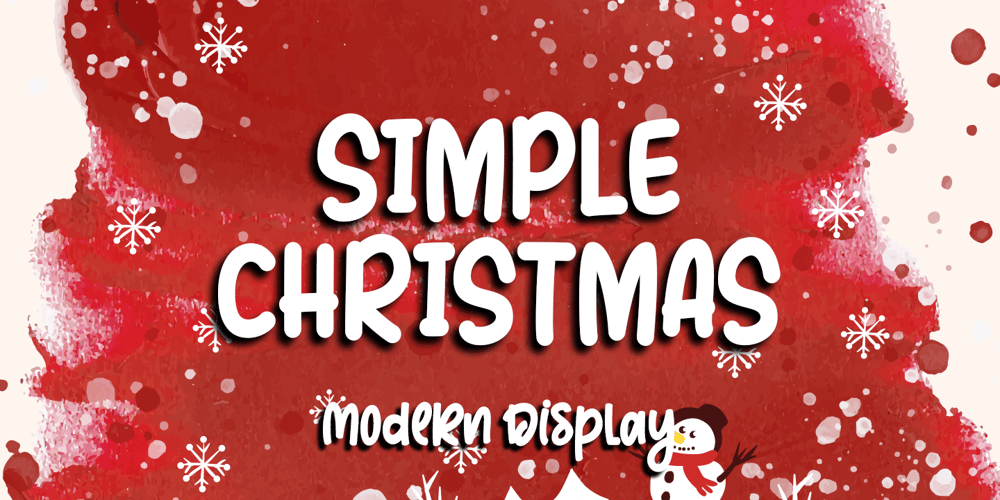
Simple Christmas
Simple Christmas font
Simple Christmas Font Family was designed by Stefani Tri Rosa Setiati Christiana and published by Stefani Letter. Simple Christmas contains 2 styles and family package options. Simple Christmas is a bold, playful, and fun display font. Whether you use it for cartoon-related designs, children’s games, or just any creation that requires a lovely touch, this font will be an amazing choice, especially when combined with bright colors. Use it to make your ideas more realistic and create spectacular designs! This font is PUA encoded which means you can access all the beautiful glyphs with ease!